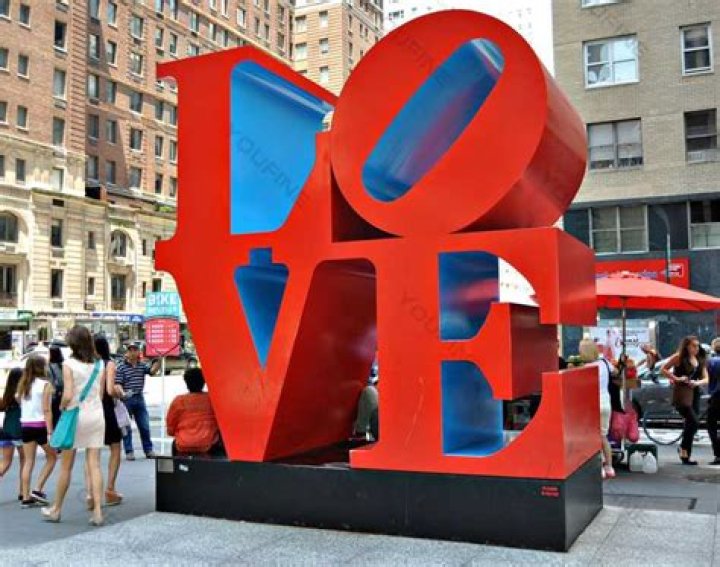
What font is the LOVE sculpture?
Love is a pop art image by American artist Robert Indiana. It consists of the letters L and O over the letters V and E in bold Didone type; the O is slanted sideways so that its oblong negative space creates a line leading to the V.
Why is the O crooked in the Love statue?
The slanting of the O was designed intentionally as to have the negative spaces forming a V in between the letters, which as Indiana says 鈥渕akes the letters dynamic.鈥 Before long, the popularity of the piece brought the piece to serve as a print image for the 1964 Museum of Modern Art Christmas card, then becoming a
What happened to LOVE sculpture NYC?
Located on the corner of 55th and 6th Avenue is debatably Indiana’s most famous work: the LOVE statue (formally known as 鈥渓ove red blue.鈥 This piece has been a hotspot for tourists and New Yorkers, alike. The first LOVE sculpture was created in 1970, and is now located in the Indianapolis Museum of Art.
Where is the original Love statue?
The LOVE sculpture resides in LOVE Park, located across the street from City Hall in Center City Philadelphia, and is free to visit.
Why did Robert Indiana make the LOVE sculpture?
The inspiration for the piece was deeply personal to the artists. It had been a tribute to his father who died at the end of 1965. The red and green recall the sign of the Phillips 66 where his father worked, while the blue evokes the sky of his home state and chosen namesake, Indiana.
How many LOVE sculptures did Robert Indiana make?
Over the course of several decades, Indiana would go on to create over 50 editions of the sculpture for sites around the world, from New York City and Philadelphia to Singapore and Taipei.
Is there only one LOVE sculpture?
The Indiana-born artist’s original LOVE sculpture, according to USA Today, can be found at Newfields, the Indianapolis Museum of Art, where it was installed in 1970.
Is there a LOVE sculpture in Chicago?
The famous “Love” sculpture in Philadelphia, has an “iconic mate”in Chicago; “Hope”! It’s at display in the Hancock Center Plaza.. Indiana defined a generation with his masterpiece LOVE and with HOPE, Love’s iconic mate, he has created a timeless and new positive message for the future.
What is the purpose of the LOVE sculpture?
Philadelphia mourns the passing of artist Robert Indiana, whose iconic LOVE and AMOR sculptures have transformed the city’s public art landscape and have come to symbolize Philadelphia as the “City of Brotherly [and Sisterly] Love.”
What famous president did the LOVE sculpture artist make a hope statue?
HOPE. HOPE (2008) is a large-scale steel sculpture, created for the 2008 presidential campaign of Barack Obama, which plays on Indiana’s most famous image, LOVE.